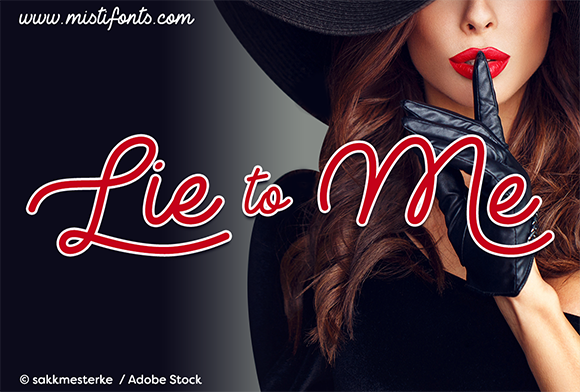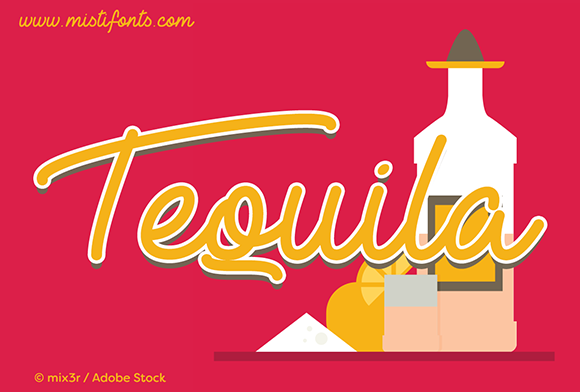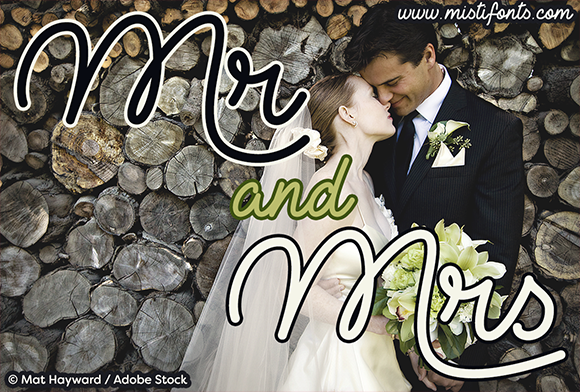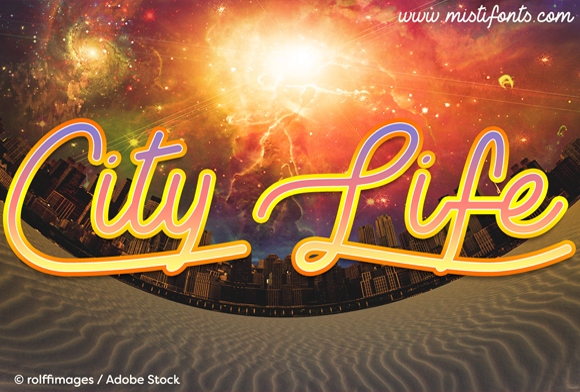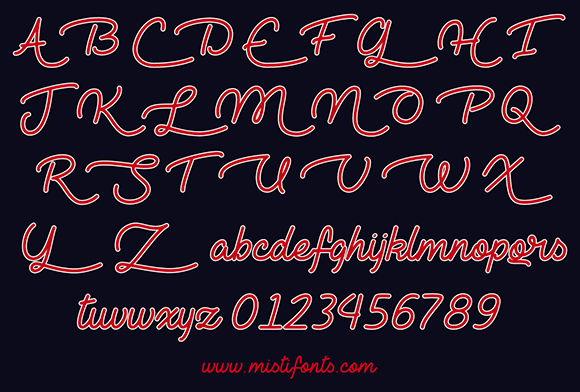
HomeScript FontsLie to Me Font Script Fonts Lie to Me Font FacebookXPinterestWhatsApp Lie to Me Font Poster 2 Lie to Me Font Poster 3 Lie to Me Font Poster 4 Lie to Me Font Poster 5 About Lie to Me Font Lie to Me is a stylish cursive script that is perfect for your craft and design projects! DOWNLOAD ON CREATIVE FABRICAThis font is sold and delivered by Creative Fabrica. Font Canyon may earn a commission if you buy through this link. People also explored Hello Martha Font Dream Bean Font Jungle Jive Font Maryland Family Font Manolo Extra Bold Font Carnallians Font Bear Time Font Stick Font Anggelino Font 447 0 TagsLie to Me Font Previous articlePalma Nana FontNext articleRingotube Font LEAVE A REPLY Cancel reply Comment: Please enter your comment! Name:* Please enter your name here Email:* You have entered an incorrect email address! Please enter your email address here Website: Save my name, email, and website in this browser for the next time I comment. Personal Use Free Little Pixel Personal Use Free Read more about this font Amrina Personal Use Free Read more about this font Allea Sweet Personal Use Free Read more about this font Lightning Script Personal Use Free Read more about this font BLOG Best Fonts for YouTube Videos: Make Your Thumbnails Stand Out Best Fonts for YouTube Videos: Make Your Thumbnails Stand Out Choosing the right font can make a massive difference in how your YouTube videos perform.... How to Install and Use Fonts on Windows, macOS, and Web Projects Best Fonts for T-Shirt Design – Top 2025 Picks Exploring Font Trends